24 of the Best Script Fonts (That Are Totally Free + Actually Cute)
The Best Script Fonts That Are Free, Fabulous, and Font-Nerd Approved
Let’s face it — not all script fonts are created equal. Some are charming and playful. Some are elegant and refined. And some… well, some look like they were written by a toddler on a sugar rush.
If you’ve been hunting for the best script fonts that are not only free but actually usable (and dare I say…pretty?!), you’re in for a treat. I’ve rounded up my favorite free script fonts – from swirly Canva fonts to popular script letters from Google Fonts – that’ll elevate your branding, social posts, website, or even that dreamy wedding invite you’re designing at 2 a.m.
Whether you’re going for romantic and refined or bold and bubbly, these are good script fonts ready to glam up your graphics – no overpriced font bundles required.
Free Fonts That Look Designer-Level
Here are 24 of the best free script fonts that you can use for your brand, website, or next passion project — whether you’re team Canva, team Google Fonts, or (like me) team “download every pretty font just in case.”
Top Picks from Google Fonts
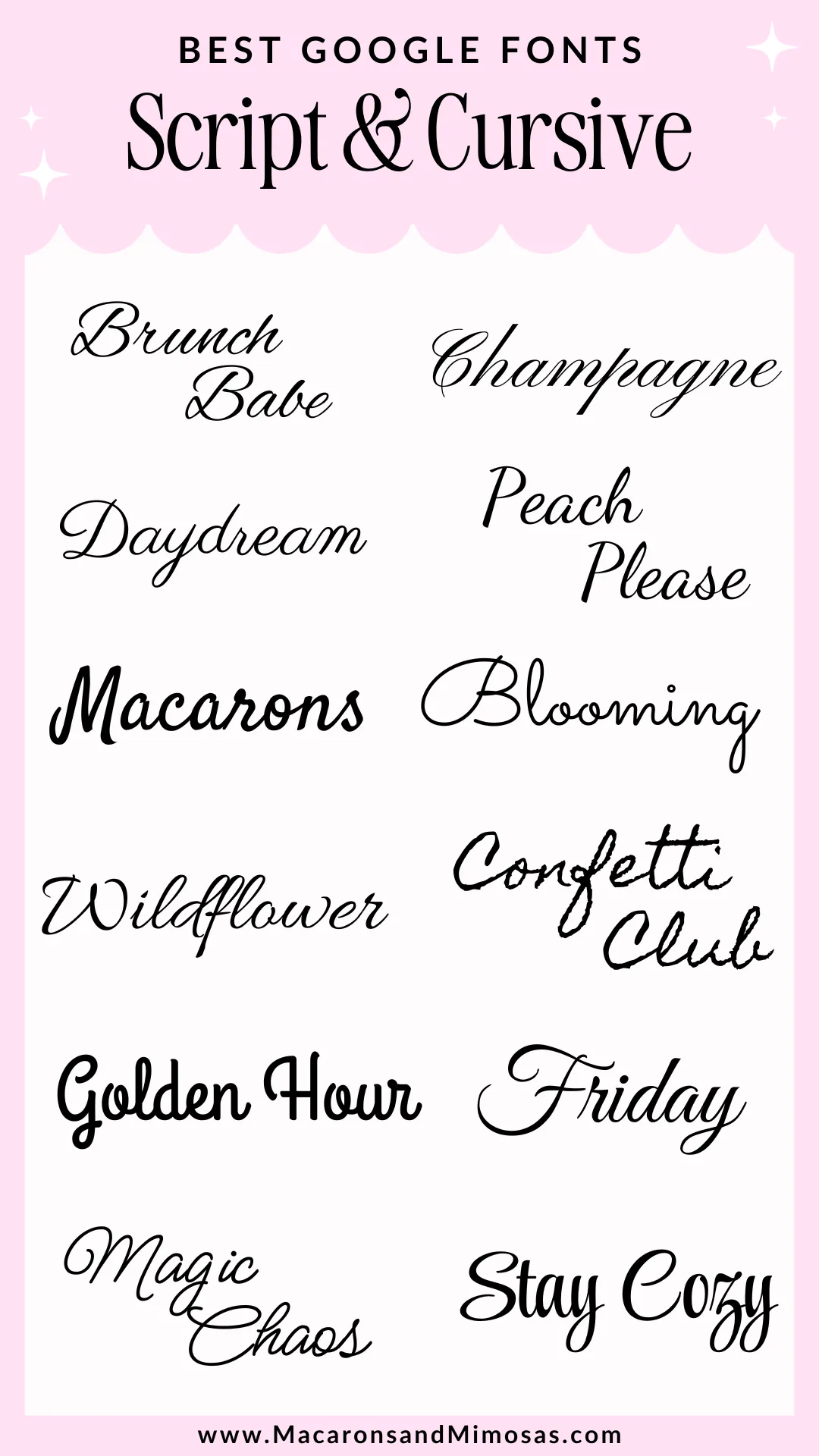
Alex Brush – Smooth, classic, and surprisingly legible. A go-to for elegant branding.
Pinyon Script – Flowing and formal, ideal for upscale touches.
Parisienne – Casual Parisian chic. Think: handwritten note on luxe stationery.
Dancing Script – Bouncy and fun, this one adds energy to any design.
Satisfy – Chunky and curvy — in the best way.
Sacramento – Retro without being kitschy. Pairs well with minimalist design.
Allura – Light and graceful with a soft, romantic flair.
Homemade Apple – Cozy and imperfect — in that handwritten, warm apple pie way.
Grand Hotel – Bold and playful with a vintage soda shop vibe.
Great Vibes – Swirly and dramatic. This one makes a statement.
Meow Script – Whimsical and… well, just plain cute.
Style Script – Curvy, classy, and full of attitude.
Cutest Canva Fonts to Try
These cursive fonts are available on Canva (free and/or Pro). If you design your Instagram posts, emails, or moodboards in Canva, you’re going to want to save these.
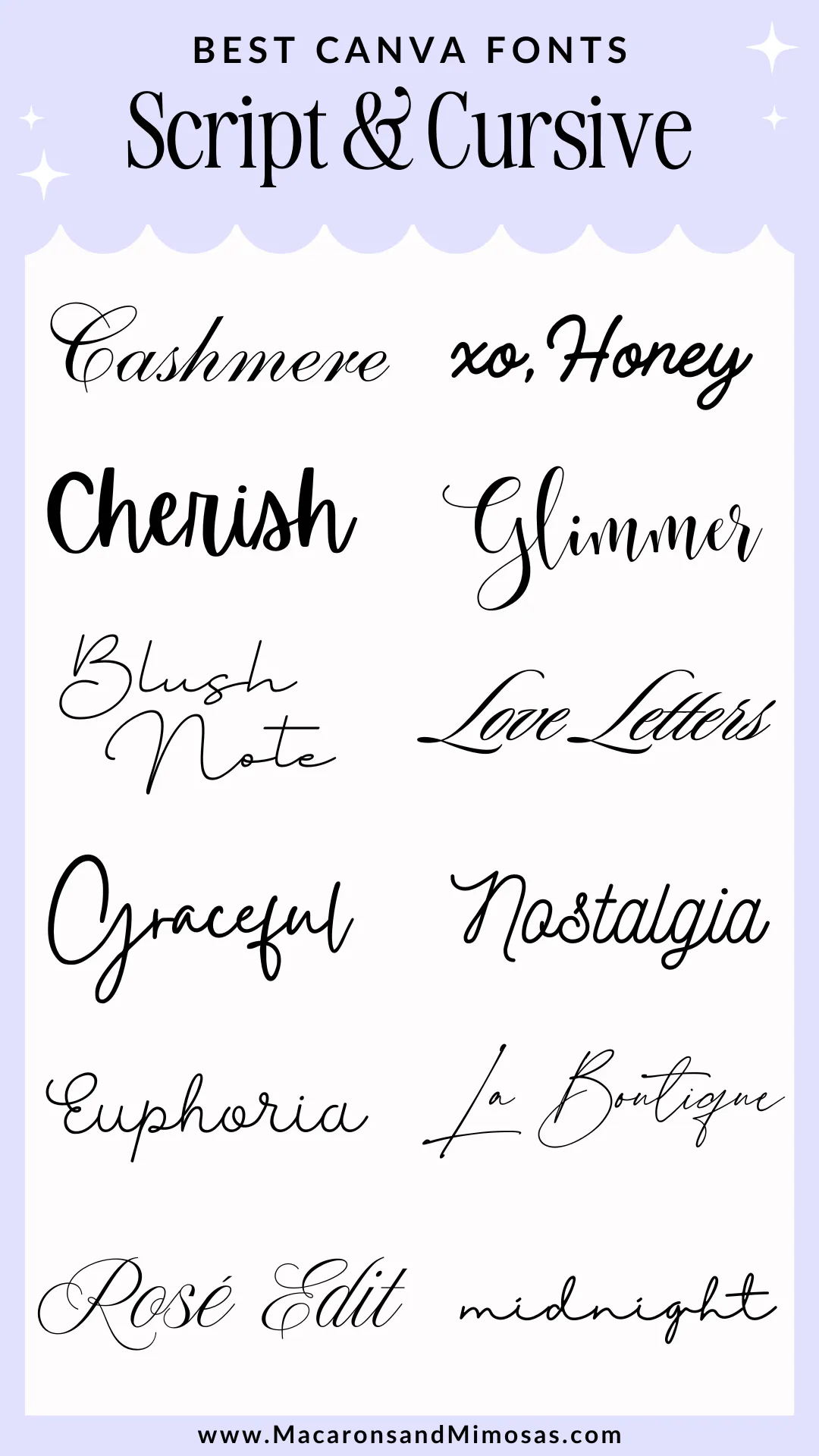
Anastasia – Elegant and poised, with a fashion-forward feel.
Handelson – Bold, brushy, and full of personality.
Apricots – Cute and quirky, great for playful branding.
Ghisella – Fancy but not fussy. I love this for wedding creatives.
Billion Miracles – Sleek and sharp. Looks fab paired with thin serifs.
Sloop Script – Classic calligraphy vibes with modern grace.
Gistesy – Flowing and stylish with editorial flair.
Nickainley – Casual and script-y but still polished.
Cretina – Smooth and simple. Kind of like your favorite neutral outfit.
La Luxes Script – Delicate and ultra-modern, like a handwritten signature from a minimalist influencer.
New Icon Script – A bouncy, confident script that looks handwritten but stylish.
Halimum – Tall, skinny, and soft — ideal for minimal layouts.
How to Use Script Fonts Like a Pro (Without Making Your Design Cry)
Here’s the tea… script fonts are like hot sauce ️🔥. A little goes a long way.
Use for headlines, not paragraphs
Unless you want your reader to feel like they’re deciphering ancient cursive.
Pair with a clean serif or sans-serif
Try Montserrat or Lora for balance. It’s the design version of opposites attracting.
Stick to one script font per project
Mixing scripts is like mixing animal prints… bold choice, but rarely a good one.
Final Thoughts
Script fonts are the secret sauce for giving your brand a little extra oomph. Whether you’re creating a dreamy homepage, packaging for your candles, or Pinterest pins that actually get clicks — the right font makes all the difference.
Go ahead and try a few of these out! (Just maybe not all 24 on the same page, okay?)
Q: What are the best script fonts that are free to use commercially?
A: Most Google Fonts (like Alex Brush, Great Vibes, or Sacramento) are totally free for commercial use. Canva fonts like Apricots or Ghisella are fine for personal projects and online use, but always double-check Canva’s licensing if you’re using them for a logo, physical product, or trademarked design.
Q: What’s your favorite script font of all time?
A: Honestly? Don’t make me choose… but I’m a sucker for fonts like Nickainley when I want whimsy, and New Icon Script when I want preppy charm. That said, I have a soft spot for any font that looks like it belongs on a handwritten letter or luxury candle label.